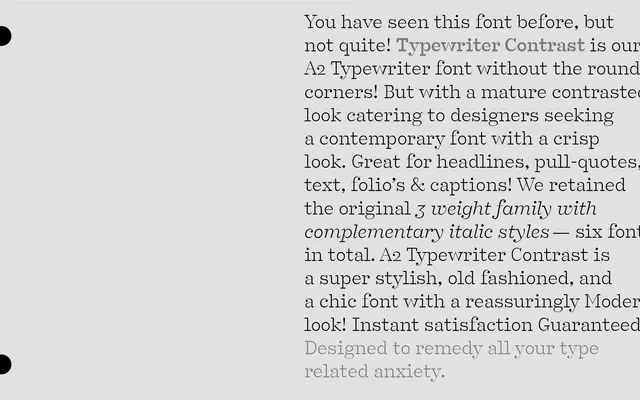
Typewriter Contrast
A contrasted, square-terminal reworking of A2-Type's Typewriter face, spanning three weights with italics for headline and text use.
Built on the foundation of A2 Typewriter, this variant introduces stroke contrast and square terminals that shift the familiar typewriter aesthetic towards something more considered and contemporary. Three weights from Regular to Bold each carry matching italics, giving the family enough range for headlines, pull-quotes and running text alike. The mid-century modern reference is present without tipping into pastiche.
Derives from A2-Type's Typewriter family and retains the monospaced, fixed-pitch character of typewriter-style fonts, distinguished by square terminals and stroke contrast uncommon in the genre.